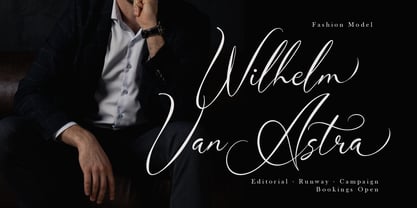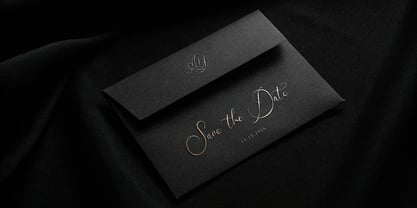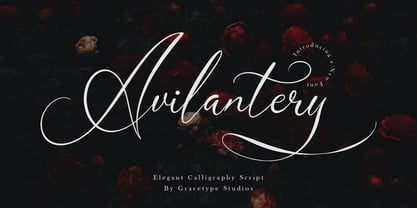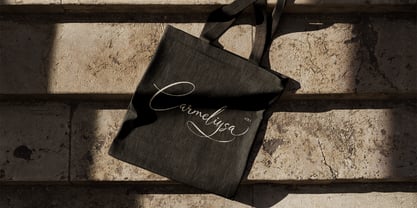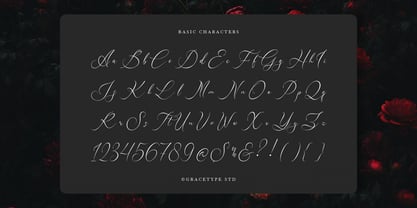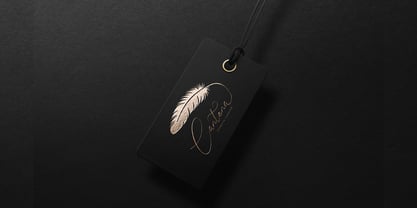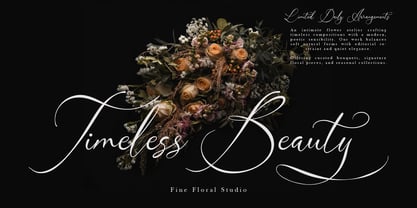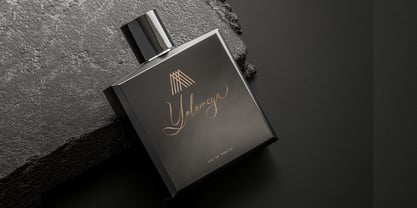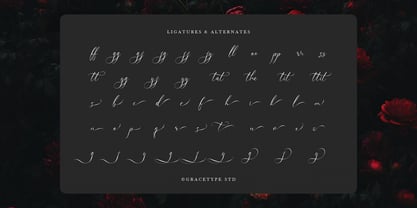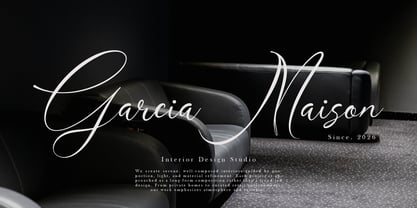
Avilantery
Avilantery | Elegant Calligraphy Script, from Gracetypestudio, suitable for any projects such as: logos, branding projects, homeware designs, product packaging, mugs, quotes, posters, shopping bags, t-shirts, book covers, name card, invitation cards, greeting cards, label, photography, watermark, special events, and all your other lovely projects that need a Script taste.